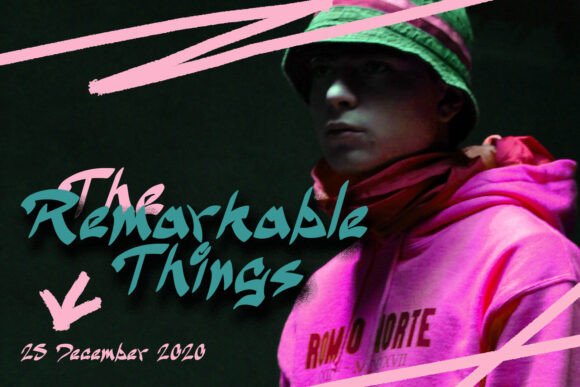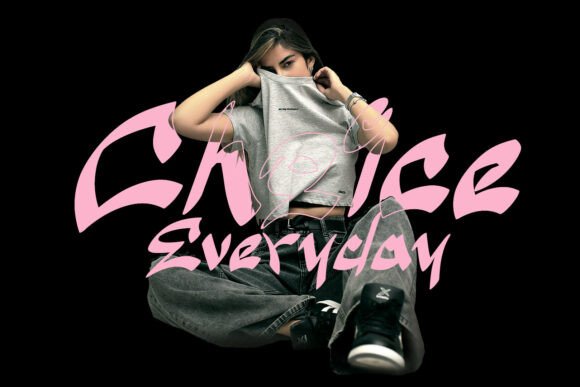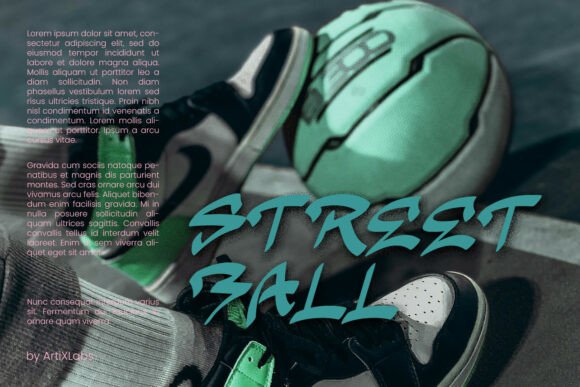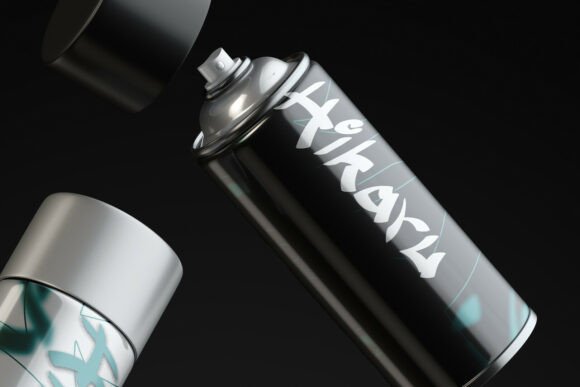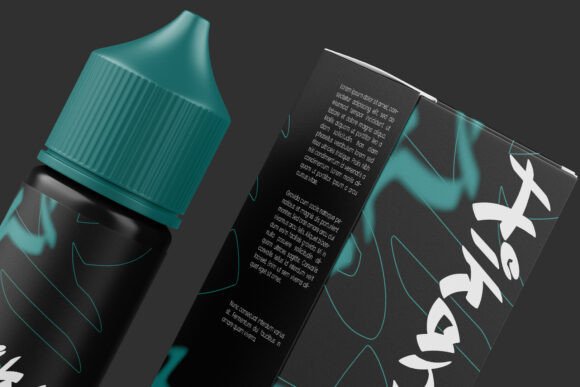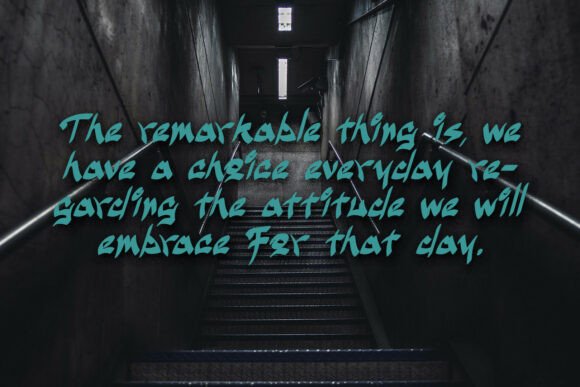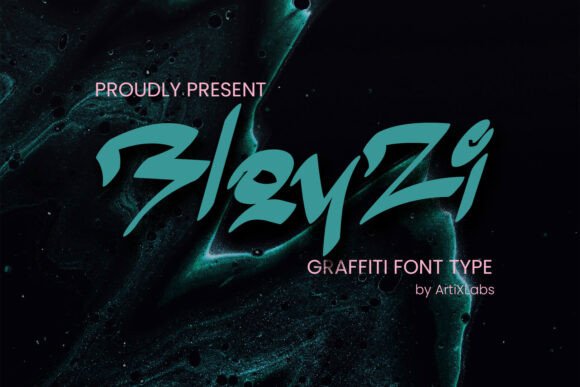
Unleash Urban Flair with BloyZi: The Daring Graffiti Brush Display Font
I’ll never forget the design struggle I faced while working on a streetwear branding project. My client wanted a font that embodied the raw energy of the streets, but I was stuck in a design rut. That’s when I stumbled upon BloyZi, a graffiti brush display font that instantly captured the vibe I was looking for. With its fluid strokes and handstyle dynamism, BloyZi became the perfect fit for my project, and I’ve been hooked ever since.
As a designer, I know how crucial it is to have a font that not only looks great but also offers flexibility and versatility. Here’s my honest review of BloyZi:
• ✨ Unique Urban Flair: BloyZi brings an unmistakable street art vibe to any design, making it perfect for projects that require an edgy attitude.
• ✅ Fluid Strokes: The font’s fluid strokes and handstyle dynamism give it a distinctive, hand-crafted feel.
• ✅ Refined Aesthetic: Despite its edgy roots, BloyZi boasts a surprisingly refined aesthetic, making it suitable for a wide range of applications.
Now, no font is perfect, and BloyZi has a few minor quirks:
• ⚠️ Limited Legibility: BloyZi’s bold, expressive strokes can make it challenging to read at smaller font sizes or in longer blocks of text.
• 🤔 Glyph Overload: With so many glyphs and stylistic alternates to choose from, it can be overwhelming to navigate the font’s full potential.
BloyZi’s creator, a talented young designer named Alex, grew up surrounded by street art in the urban jungle. Inspired by the raw energy and rebellious spirit of graffiti, Alex set out to capture that essence in a font. After months of experimentation, BloyZi was born – a daring, graffiti brush display font that embodies the vibrant, dynamic spirit of the streets.
Q: What type of projects is BloyZi best suited for? A: BloyZi is perfect for projects that require an edgy, urban flair, such as streetwear branding, posters, social media graphics, and album covers.
Q: Is BloyZi difficult to read? A: While BloyZi is a bold, expressive font, it can be challenging to read at smaller font sizes or in longer blocks of text. Use it judiciously to maximize impact.
With BloyZi, you’ll never be stuck for a font that embodies the raw energy of the streets. Make a style statement with this daring graffiti brush display font and bring a touch of urban flair to your designs.